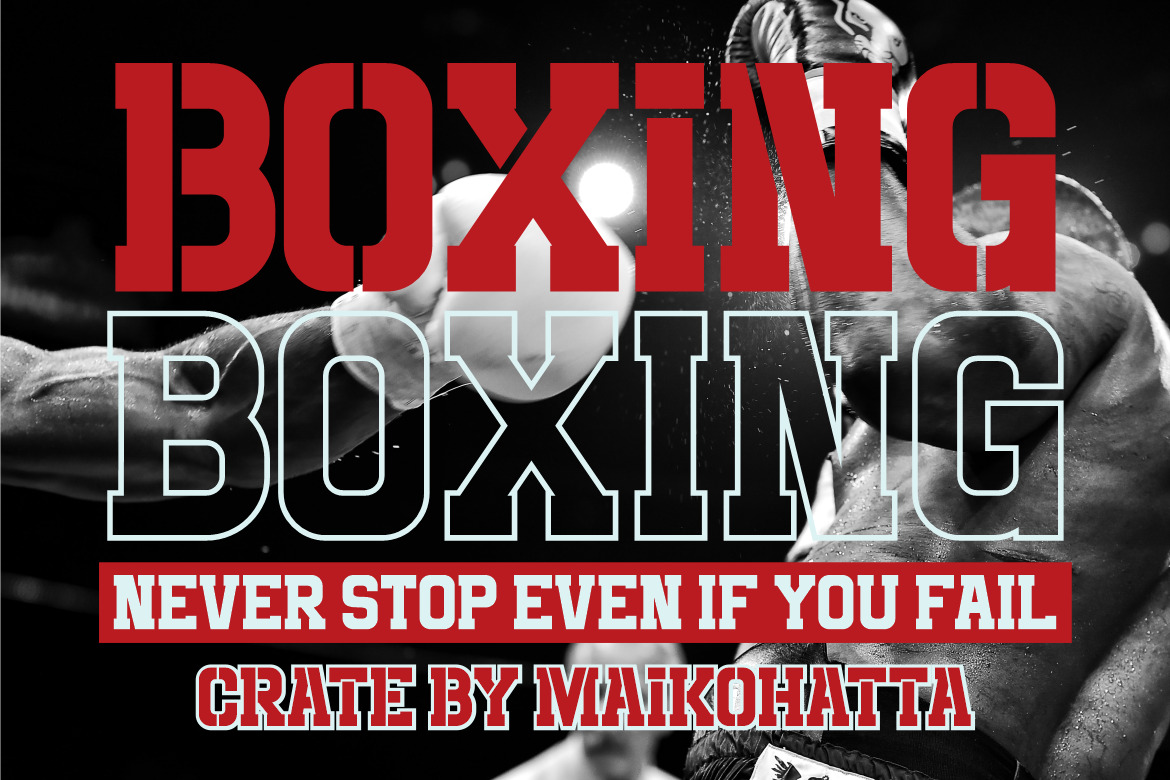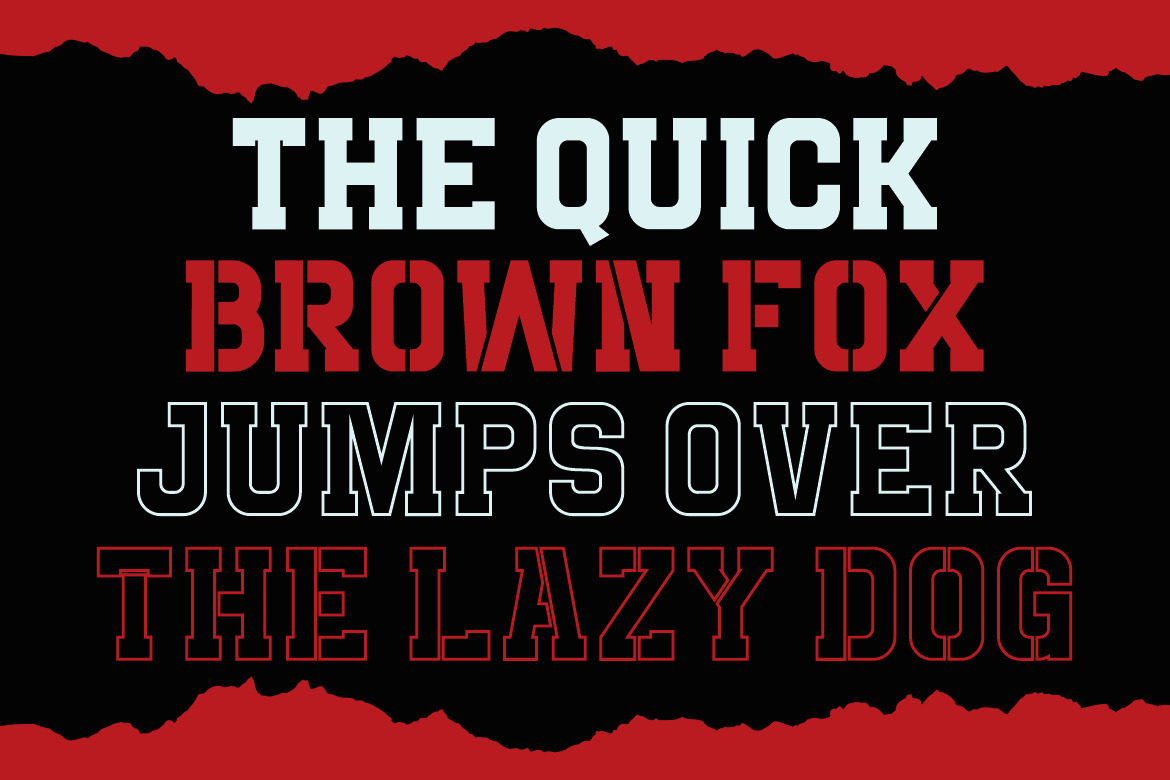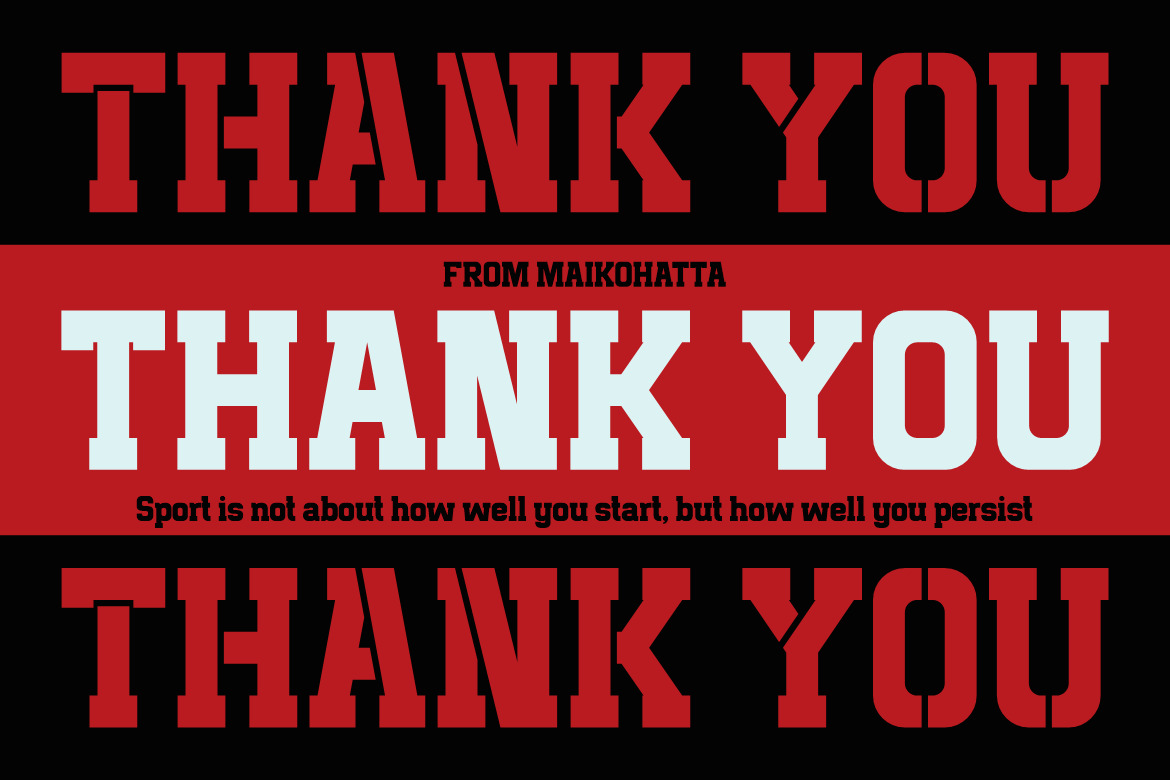
Ambura - Serif Display Font
Introducing our new product **Ambura** - Serif Display Font
This font has a series of small or decorative projections called serifs at the end of its characters. Serifs give printed text a more formal, classic, and easy-to-read appearance. Serif fonts are often used in formal documents, books, and print publications because of their good readability at small text sizes. This font is also equipped with a stencil style which is characterized by its unique typographic style, which emphasizes the characteristic holes or "cutouts" found in each letter and symbol.
This font has various uses, especially in designs that require a special look with a strong, bold and characterful touch.
**Style Font**
* Regular
* Stencil
* Line
* Line Stencil